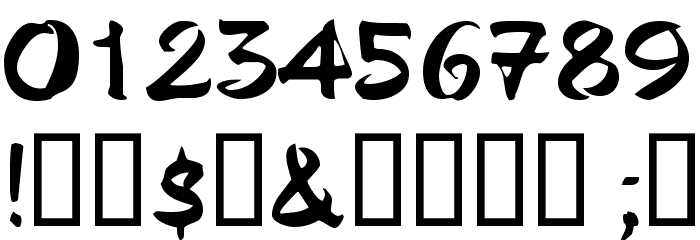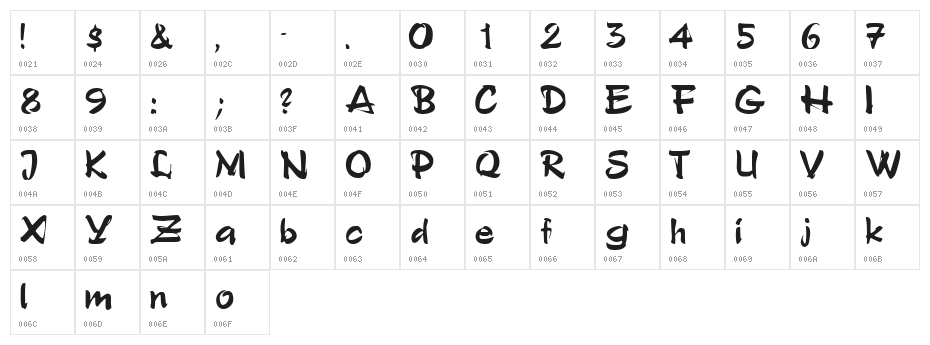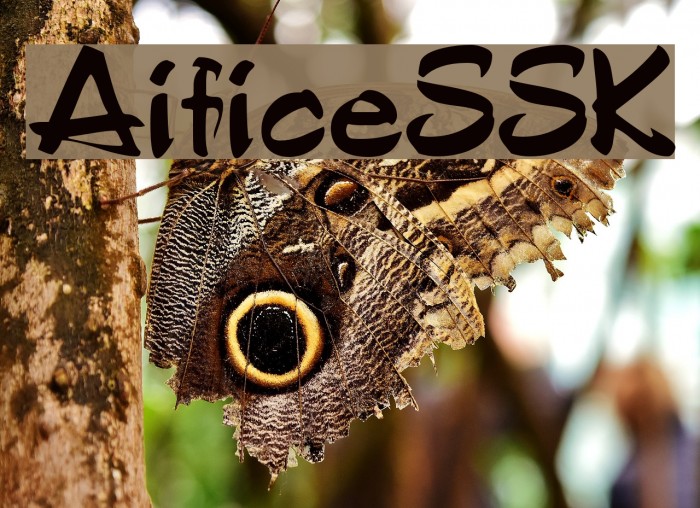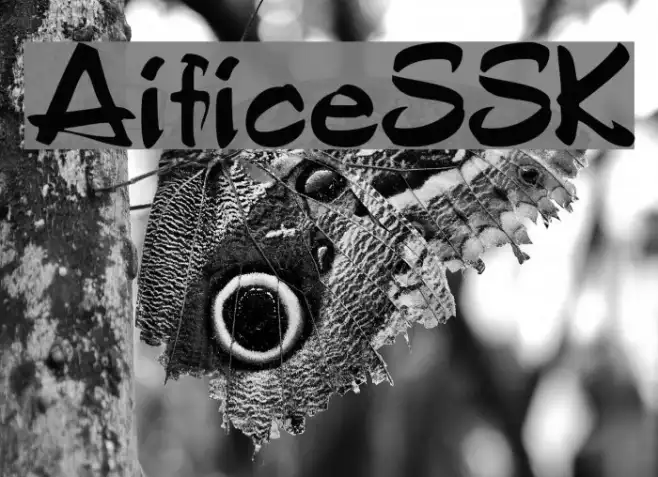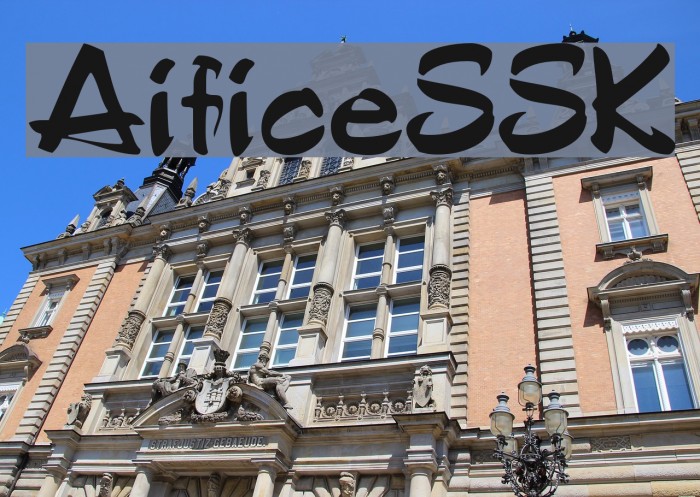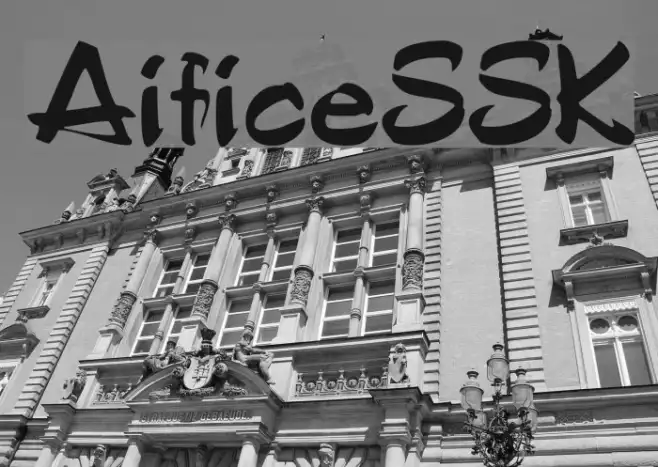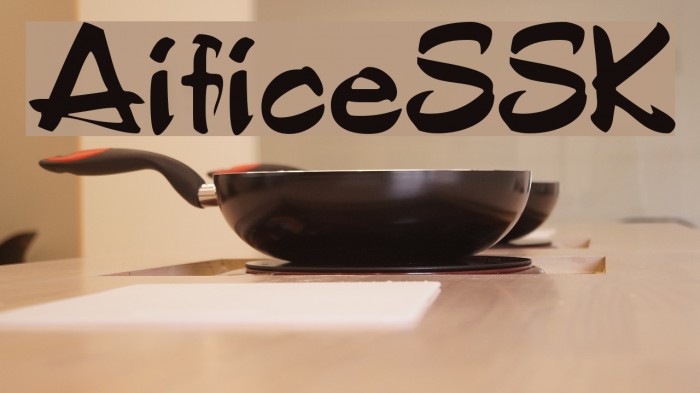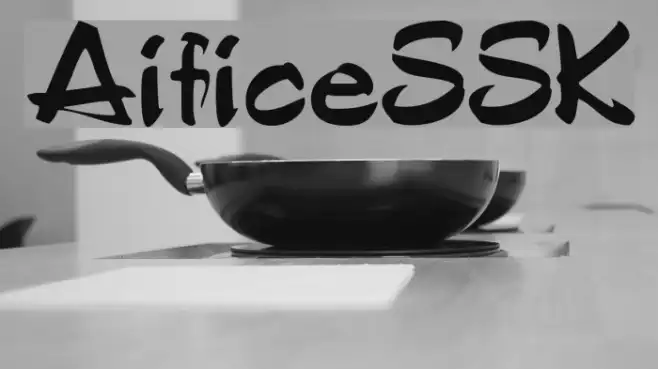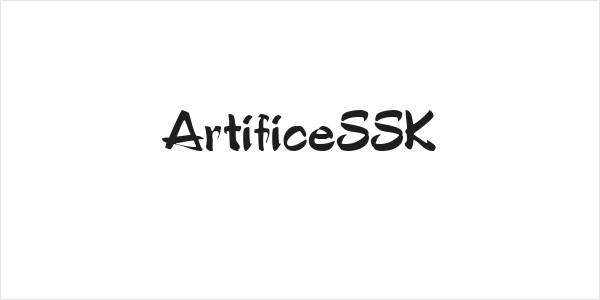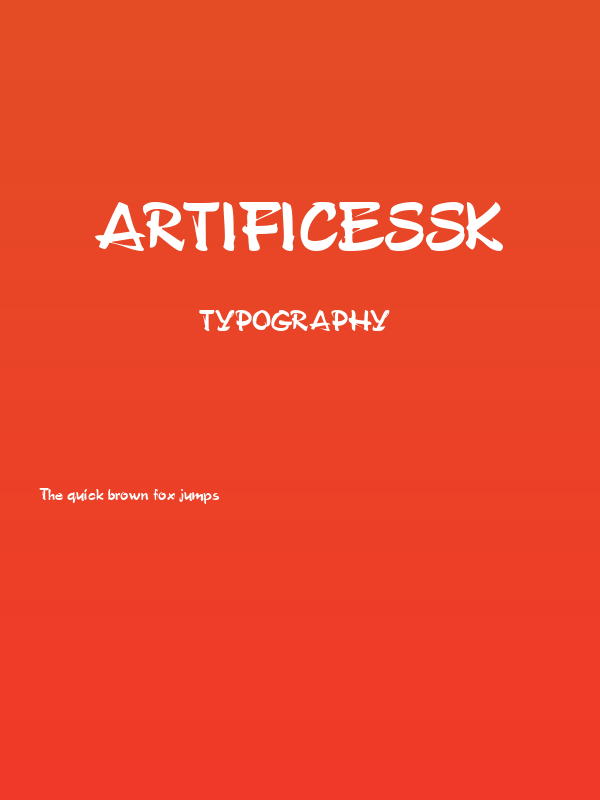
ArtificeSSK Font
ArtificeSSK Description
This font exhibits a bold, expressive style with a handwritten appearance. The characters are slightly slanted, giving a dynamic and energetic feel. The strokes are thick and consistent, creating a strong visual impact. The uppercase letters are bold and prominent, while the lowercase letters maintain a playful and casual look. Numbers and special characters follow the same bold and expressive style, ensuring uniformity across all elements. The font's design is suitable for projects that require a touch of creativity and flair.